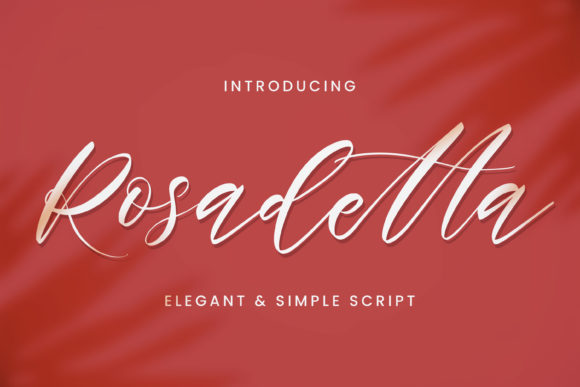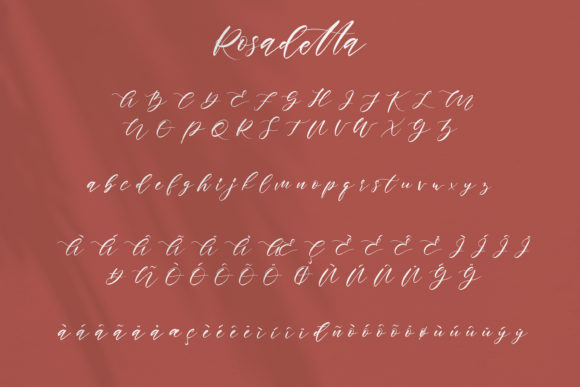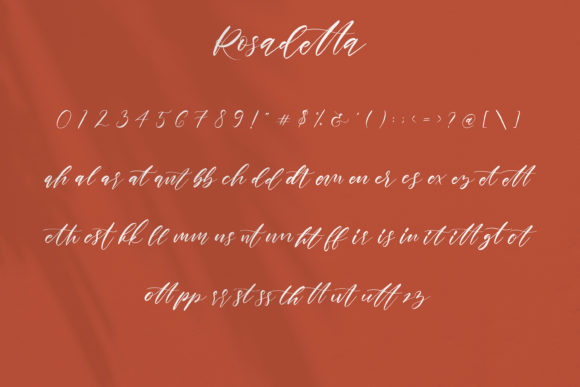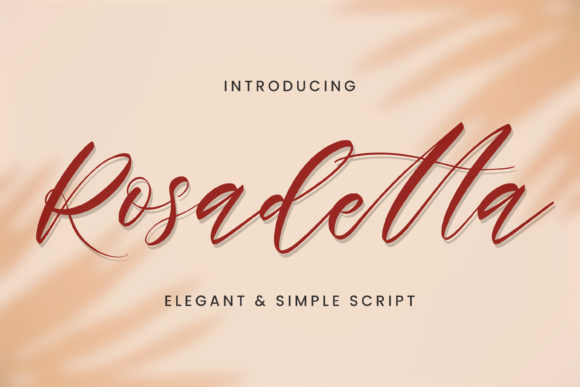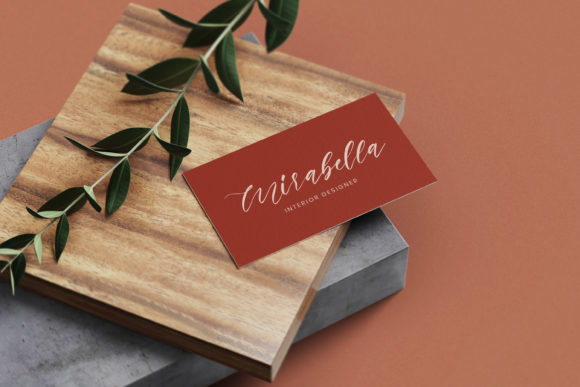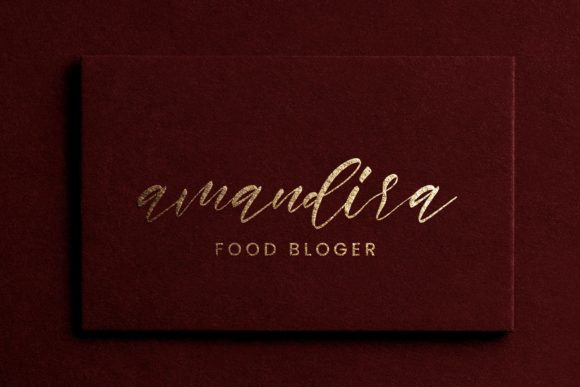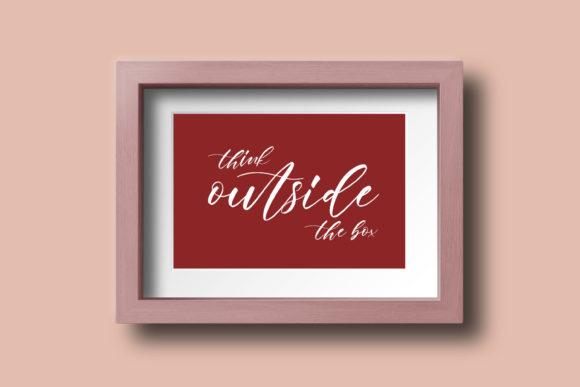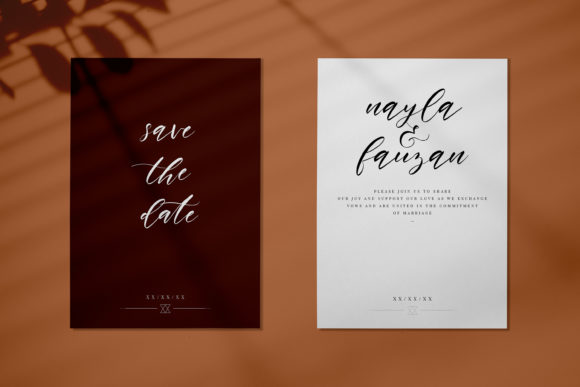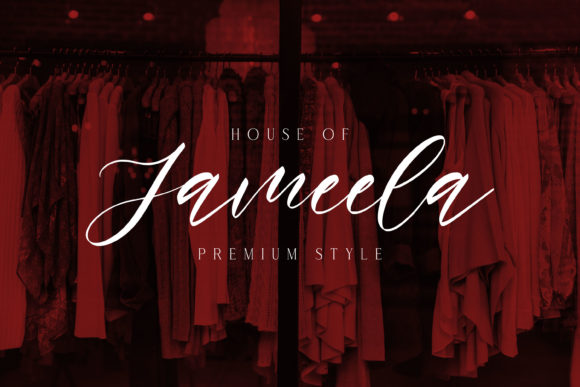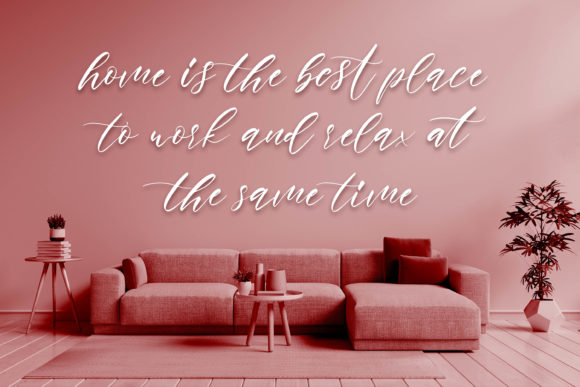
Rosadetta Font
About Rosadetta Font
Rosadetta feels equally charming and elegant. This stunning script font is a stylish homage to classic calligraphy. It features a varying baseline, smooth lines, gorgeous glyphs and stunning alternates. It will elevate a wide range of design projects to the highest level, be it branding, headings, wedding designs, invitations, signatures, logos, labels, and much more!